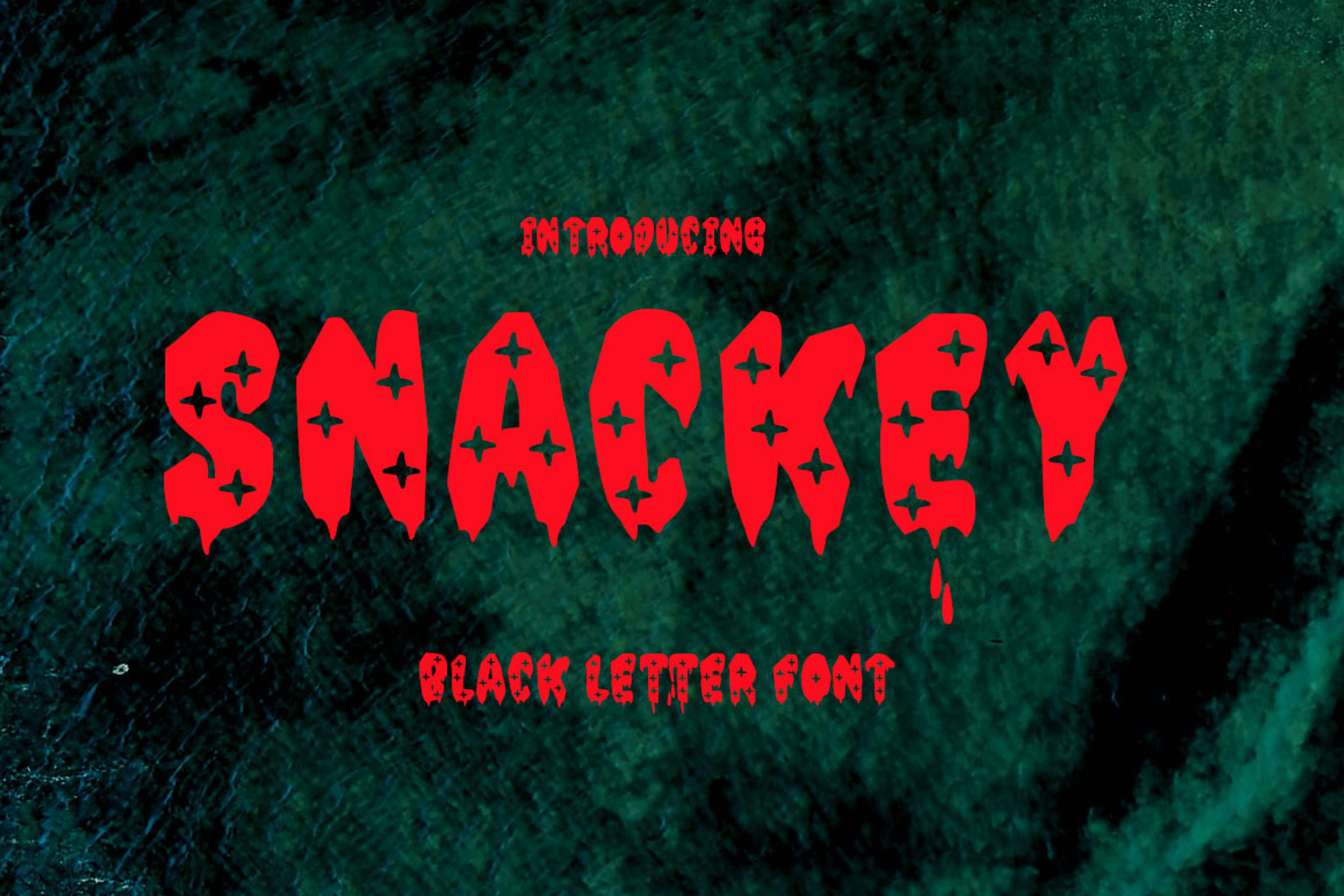
Created By Studioad
snackey
snackey is a Sport Font. its perfect for all your athletic and sports-related designs. With its strong and angular letters, this font conveys a sense of power and motion, making it the ideal choice for logos, headlines and other graphic elements that need to make a big impact.
• All Caps
• 1 Style Fonts
• numbers and punctuation
• multilingual
• alternate
• ligature